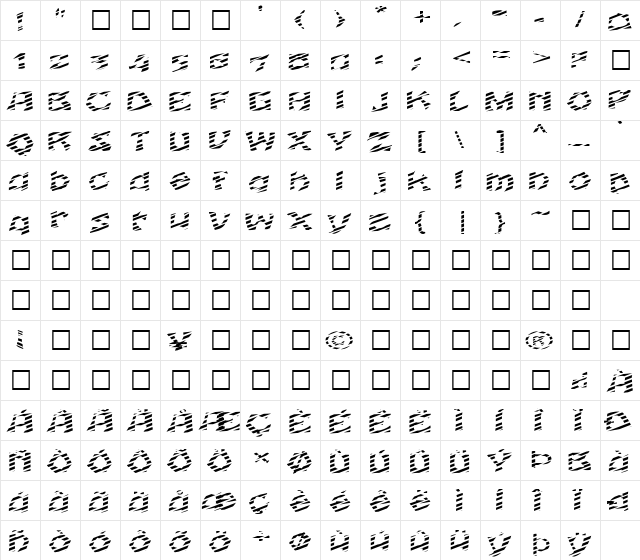
FZ JAZZY 12 STRIPED EX Normal Font Preview
FZ JAZZY 12 STRIPED EX Normal
Design Context for FZ JAZZY 12 STRIPED EX Typeface
FZ JAZZY 12 STRIPED EX is a composed and adaptable typeface that performs quietly and consistently across a wide range of design contexts.